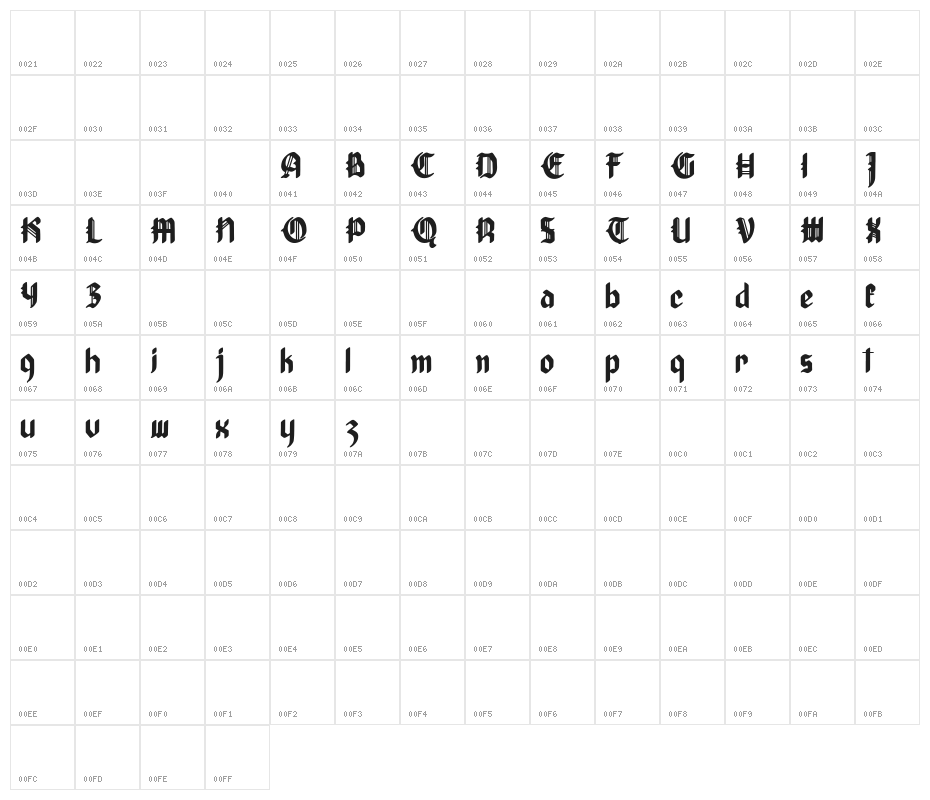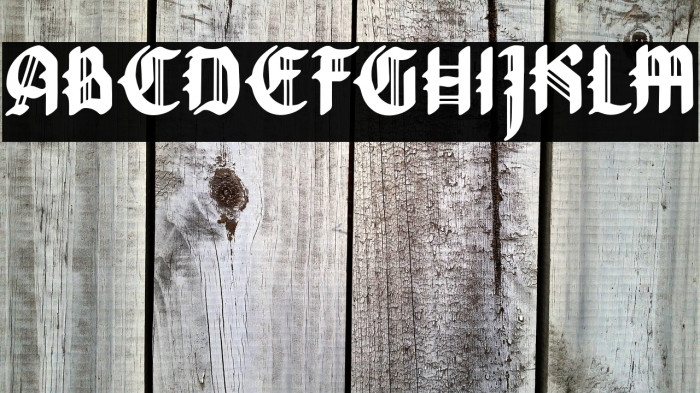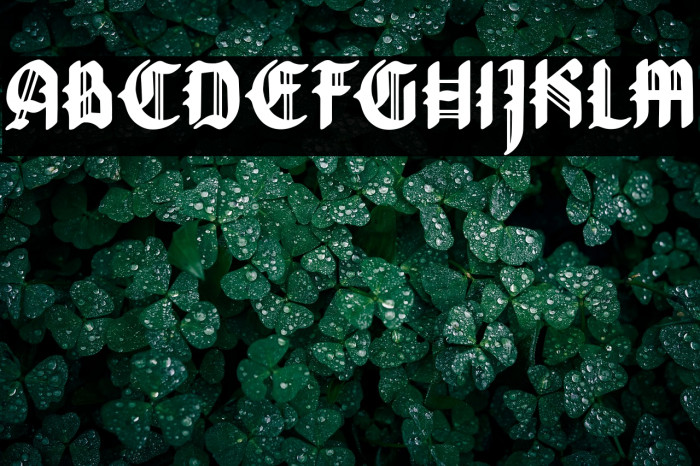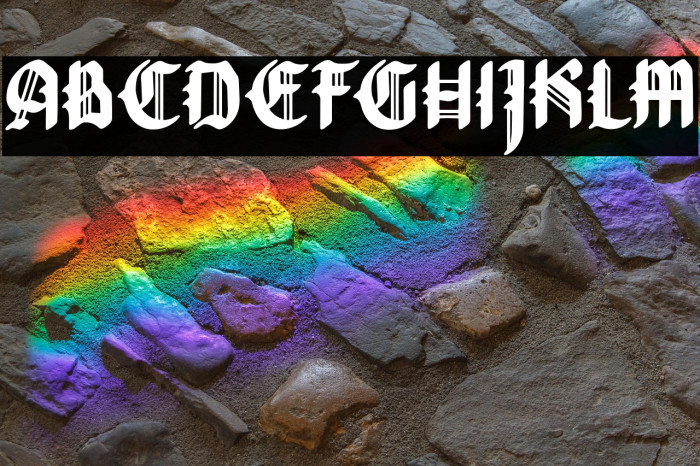
Thanose Font
Thanose Description
This font features a bold and dramatic style, reminiscent of traditional Blackletter typefaces. It has sharp, angular lines and intricate details that give it a gothic and medieval appearance. The uppercase letters are particularly ornate, with additional flourishes and strokes that enhance their visual impact. The lowercase letters maintain a consistent style, with a slightly more simplified design that complements the uppercase characters. The numbers and special characters are crafted with the same attention to detail, ensuring a cohesive look across all elements. This font's strong presence and historical aesthetic make it ideal for projects that require a touch of elegance and tradition.
| Overall Style | Gothic, Medieval |
| Use Case | Headlines, Logos, Decorative purposes |
| Proposed Projects | Ideal for use in branding, posters, book covers, and any design that seeks to evoke a sense of history or tradition. |